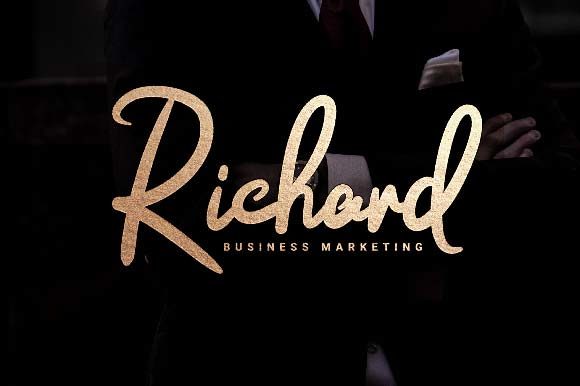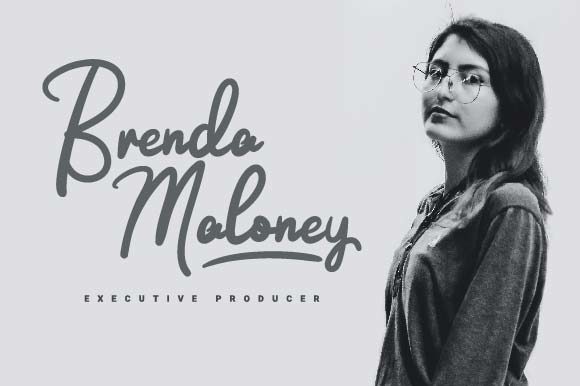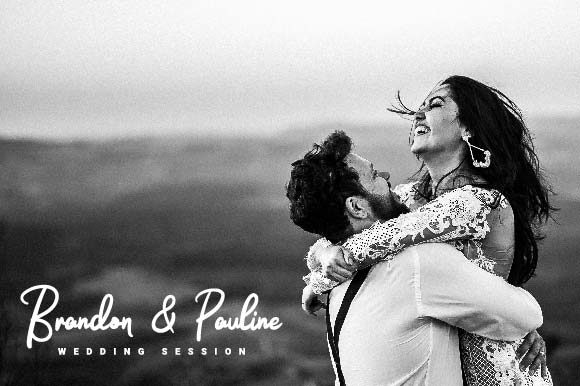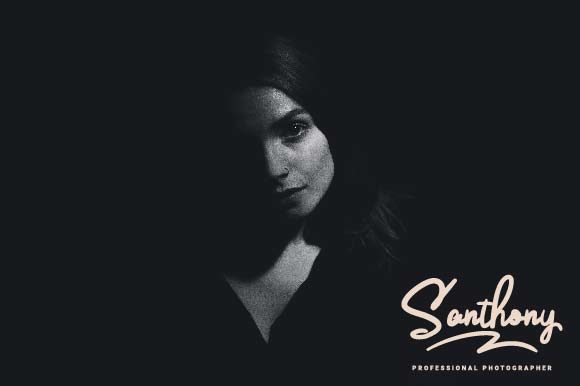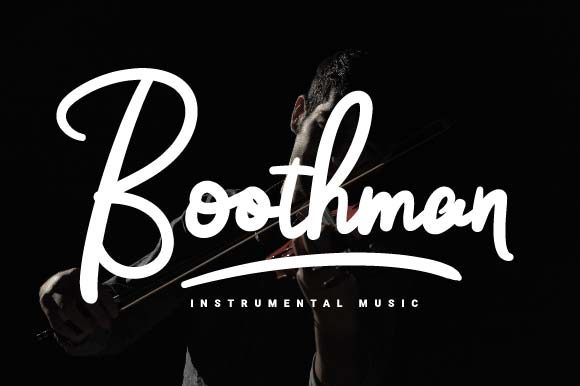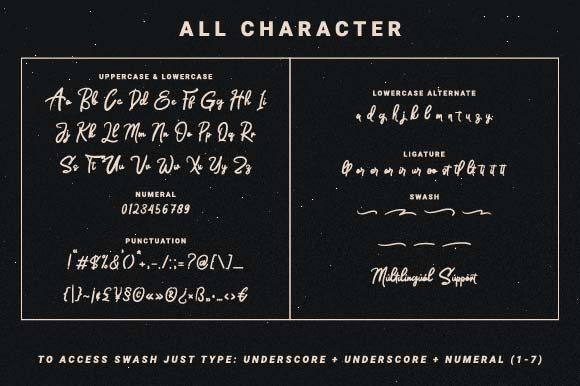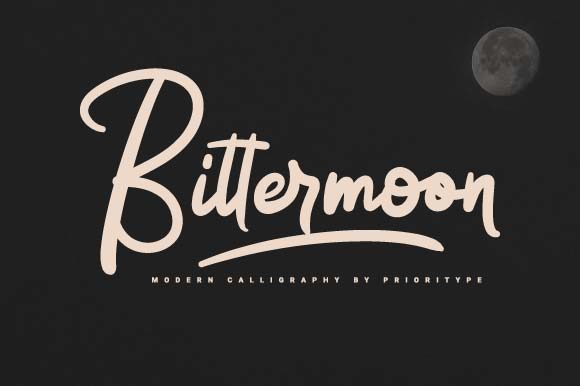
Bittermoon Font: Elevate Your Designs with Elegance and Sophistication
In the world of typography, a well-crafted font can make all the difference in bringing your creative vision to life. If you’re a designer, crafter, or simply someone who appreciates the art of beautiful lettering, you’re in luck. Introducing Bittermoon Font, a modern and elegant handwritten font that’s sure to take your designs to the next level.
What is Bittermoon Font?
Bittermoon Font is a stunning example of modern typography, boasting a unique and sophisticated handwritten style that’s perfect for a wide range of creative projects. Whether you’re looking to add a touch of elegance to your branding, packaging, or marketing materials, this font is sure to impress. With its flowing lines and intricate details, Bittermoon Font exudes a sense of refinement and luxury that’s hard to find in other fonts.
Key Features of Bittermoon Font
- Modern and Elegant Design: Bittermoon Font features a sleek and contemporary design that’s perfect for designers who want to create stunning visual effects.
- PUA Encoded: This font is PUA (Private Use Area) encoded, which means you can access all of the glyphs and swashes with ease. This makes it simple to create complex and intricate designs.
- Handwritten Style: The handwritten style of Bittermoon Font adds a touch of personality and warmth to your designs, making them more relatable and engaging.
- Highly Versatile: This font is perfect for a wide range of creative projects, from branding and packaging to marketing materials and digital media.
Benefits of Using Bittermoon Font
So why choose Bittermoon Font for your next design project? Here are just a few benefits of using this amazing font:
- Stand Out from the Crowd: With its unique and elegant design, Bittermoon Font is sure to help your designs stand out from the competition.
- Enhance Your Brand: This font is perfect for creating a sophisticated and luxurious brand image that will leave a lasting impression on your customers.
- Support Your Creative Vision: With its wide range of glyphs and swashes, Bittermoon Font gives you the creative freedom to bring your vision to life.
Tips and Tricks for Getting the Most Out of Bittermoon Font
Here are a few tips and tricks for getting the most out of Bittermoon Font:
- Use the Swashes and Glyphs: Take advantage of the font’s PUA encoding to add intricate details and flourishes to your designs.
- Pair it with Other Fonts: Bittermoon Font pairs well with a wide range of other fonts, so don’t be afraid to experiment with different combinations.
In conclusion, Bittermoon Font is a modern and elegant handwritten font that’s perfect for designers, crafters, and anyone who appreciates the art of beautiful lettering. With its unique design, PUA encoding, and highly versatile nature, this font is sure to elevate your designs and bring your creative vision to life. So why wait? Download Bittermoon Font today and start creating stunning designs that will leave a lasting impression on your audience.